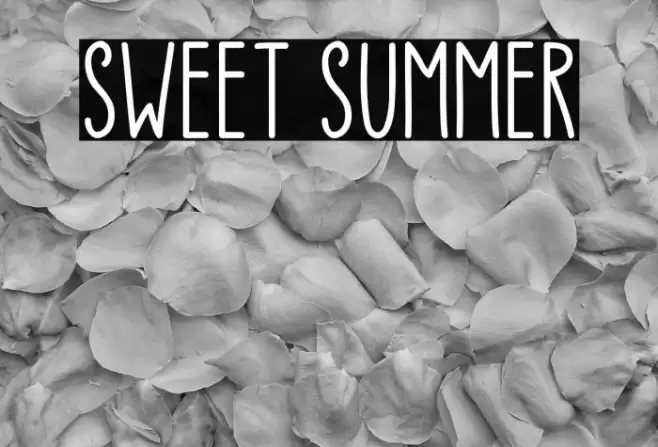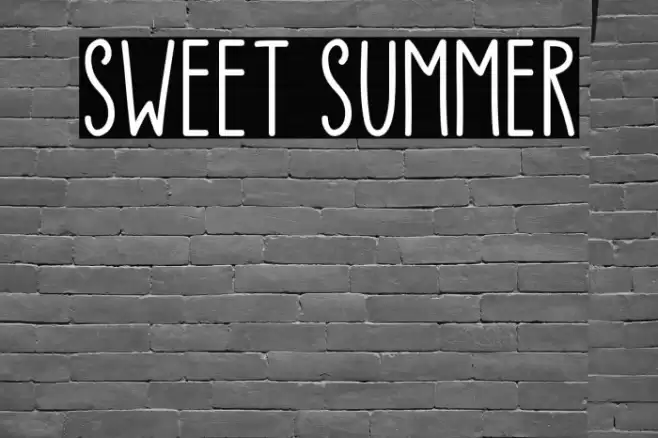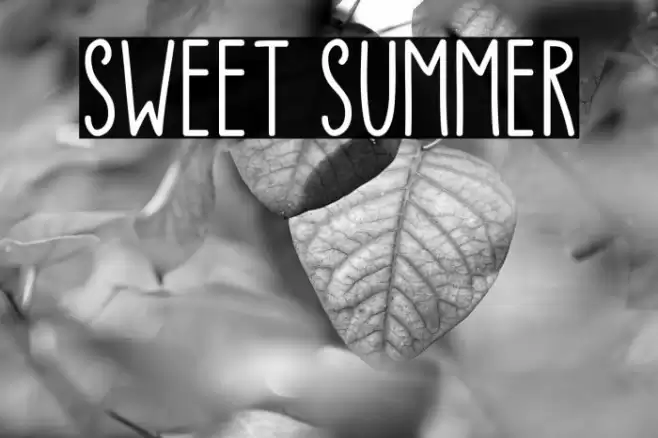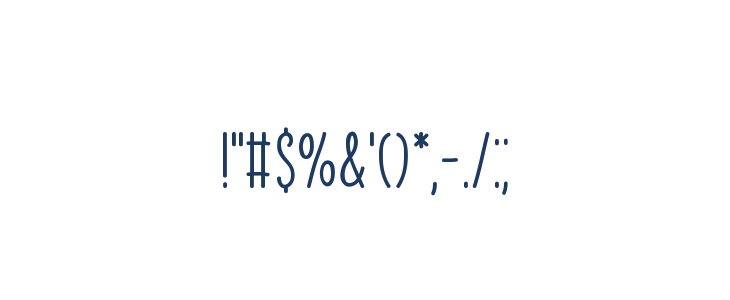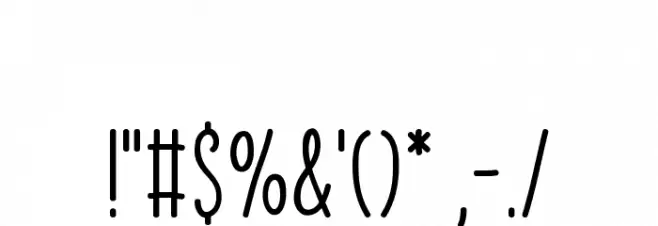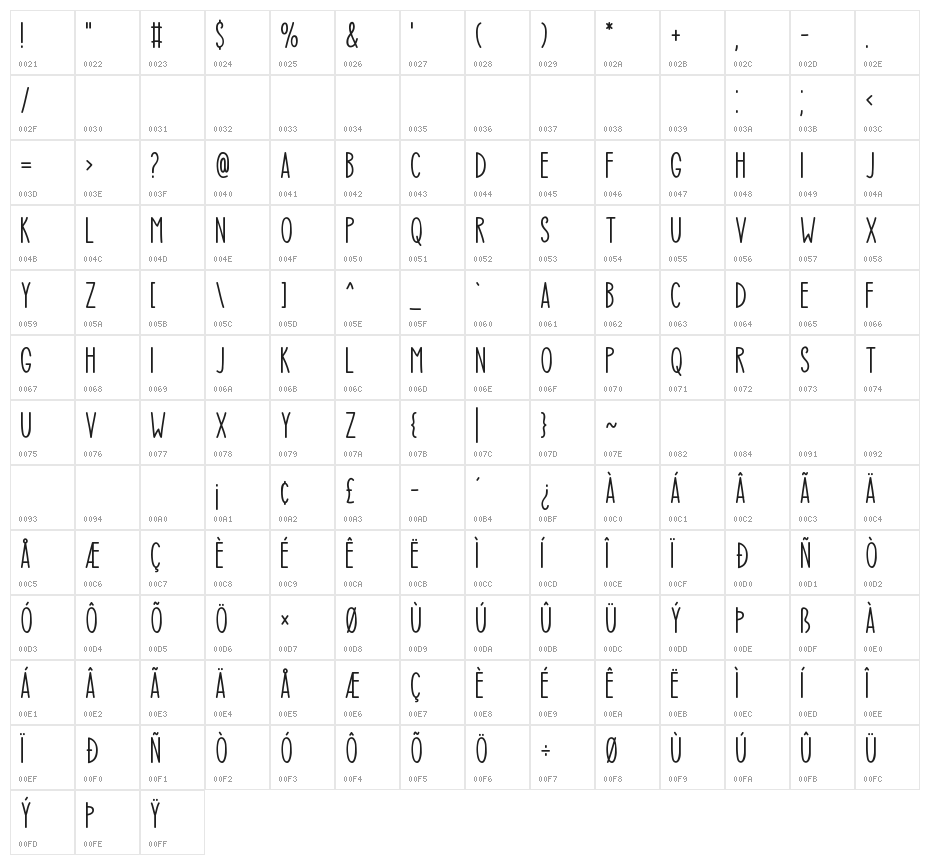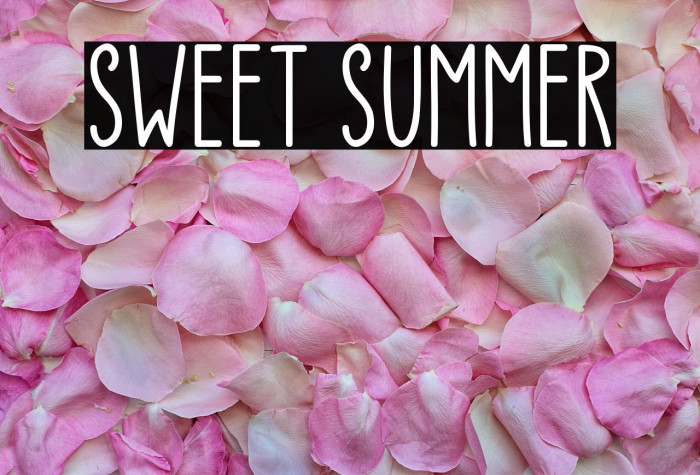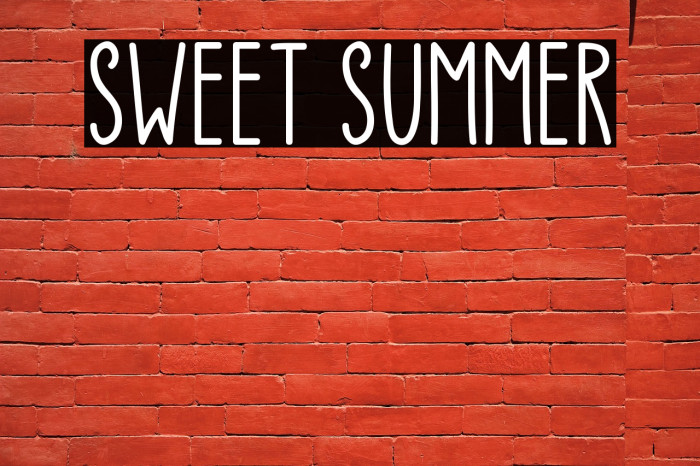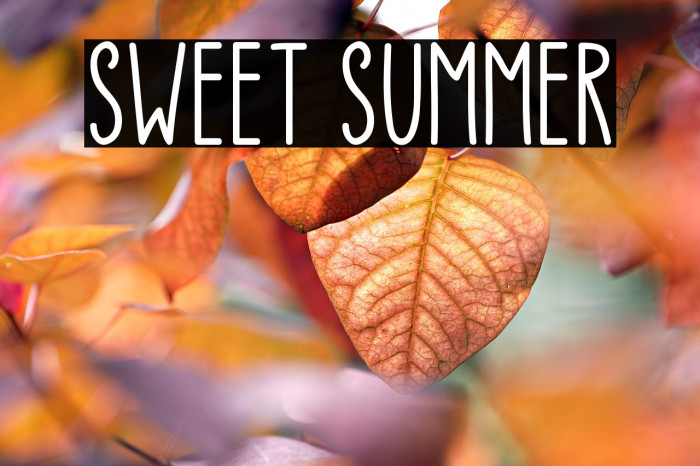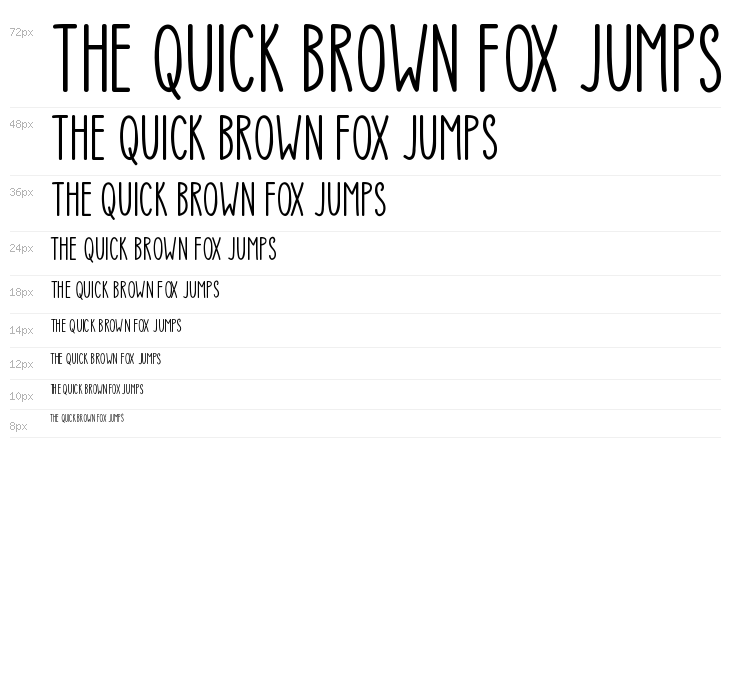
Sweet Summer Font
Sweet Summer Description
This playful and casual font features a handwritten style with a friendly and approachable appearance. The characters are slightly elongated with a consistent stroke width, giving it a clean and modern look. The uppercase and lowercase letters maintain a uniform height, while the rounded edges add a touch of softness. The font includes a full set of uppercase and lowercase letters, numbers, and a variety of special characters, making it versatile for different uses. Its informal and relaxed style makes it perfect for projects that require a personal touch.
A playful, handwritten font with a modern and friendly style from Regular fonts.
- Proposed Projects: Ideal for greeting cards, children's books, casual branding, and social media graphics.
- Overall Style: Casual
- Use Case: Headlines, Logos, Informal Text